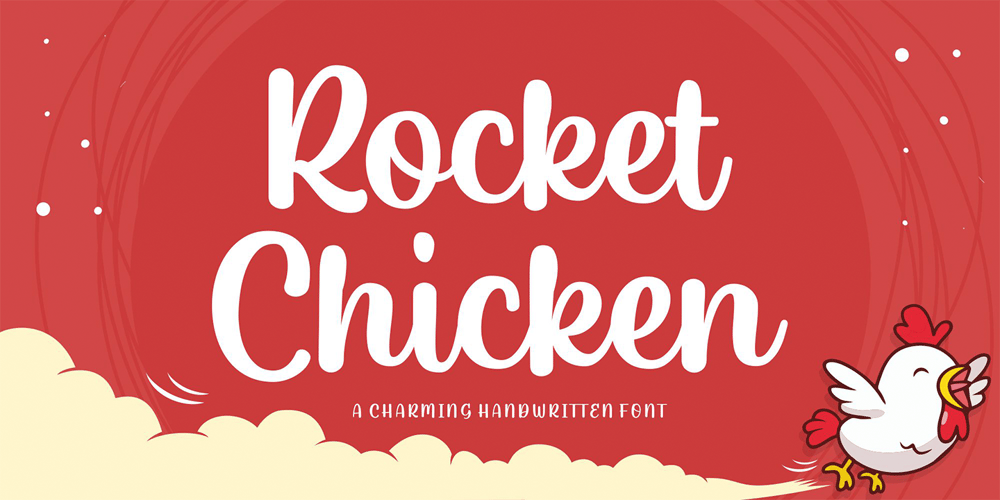
Rocket Chicken Font Family was designed by Annas Alam Yahya and published by Letteralle. Rocket Chicken contains 1 styles and family package options. A smooth handwritten font with a personal charm and modern twist. Rocket Chicken come with multilingual support. This font is suitable for your design needs such as product packaging, merchandise, social media design, T-shirts, Logotype, and more.Enjoy Designing,Thank you.